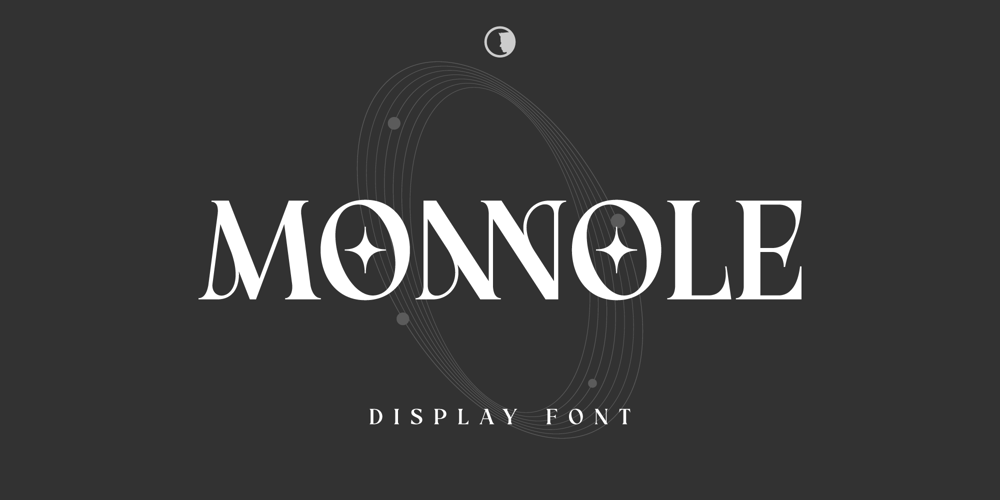
Monnole Font Family was designed by ahmad faizin and published by skillyas studio. Monnole contains 1 styles and family package options. The Monnole Serif Display Font is a sophisticated, modern serif typeface designed for premium branding and editorial purposes. With its clean lines and graceful curves, Monnole Serif is the perfect choice for high-end magazines, luxury products, and elegant web designs. It strikes a balance between classic serif traditions and contemporary flair, offering versatility and readability across various display sizes. Whether you are crafting headlines, posters, or corporate identities, Monnole Serif adds a refined touch to your visual communication.